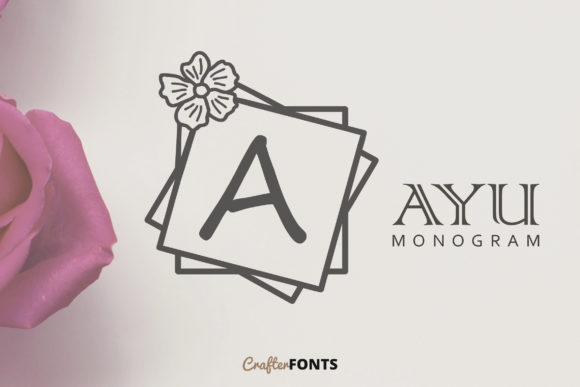
The Ultimate Design Hack: Ayu Monogram Font
I’ll never forget the time I was working on a branding project for a trendy new cafe. My client wanted a logo that was both modern and elegant, but I was struggling to find the perfect font. That was until I stumbled upon Ayu Monogram Font. It was like a breath of fresh air – a fun and useful decorative font that instantly elevated my design. In this article, I’ll share my experience with Ayu Monogram Font, and show you how to make the most of this incredible asset in your design projects.
• ✨ Unique and stylish monogram designs that add a touch of personality to any project
• ✅ Easy to use and navigate, even for those who are new to font design
• 💡 Extensive range of OpenType features, glyphs, and stylistic alternates to experiment with
• 🎨 Highly versatile and adaptable to different design styles and themes
While Ayu Monogram Font is an amazing design tool, there are a few things to keep in mind:
• 🤔 Some users may find the font a bit too playful or whimsical for certain projects
A Practical Guide to Using Ayu Monogram Font
The Story Behind Ayu Monogram Font
Ayu Monogram Font was designed by a team of creative enthusiasts who wanted to create a unique and versatile font that would inspire designers and crafters alike. The font is named after the Japanese word for “ayu,” which means “walking fish.” The design team was inspired by the playful and energetic movement of fish, and aimed to capture that sense of whimsy in their font.
Font Name Ayu Monogram Font
Author CrafterFonts
What is Ayu Monogram Font? Ayu Monogram Font is a decorative font designed for creative projects, logos, and branding.